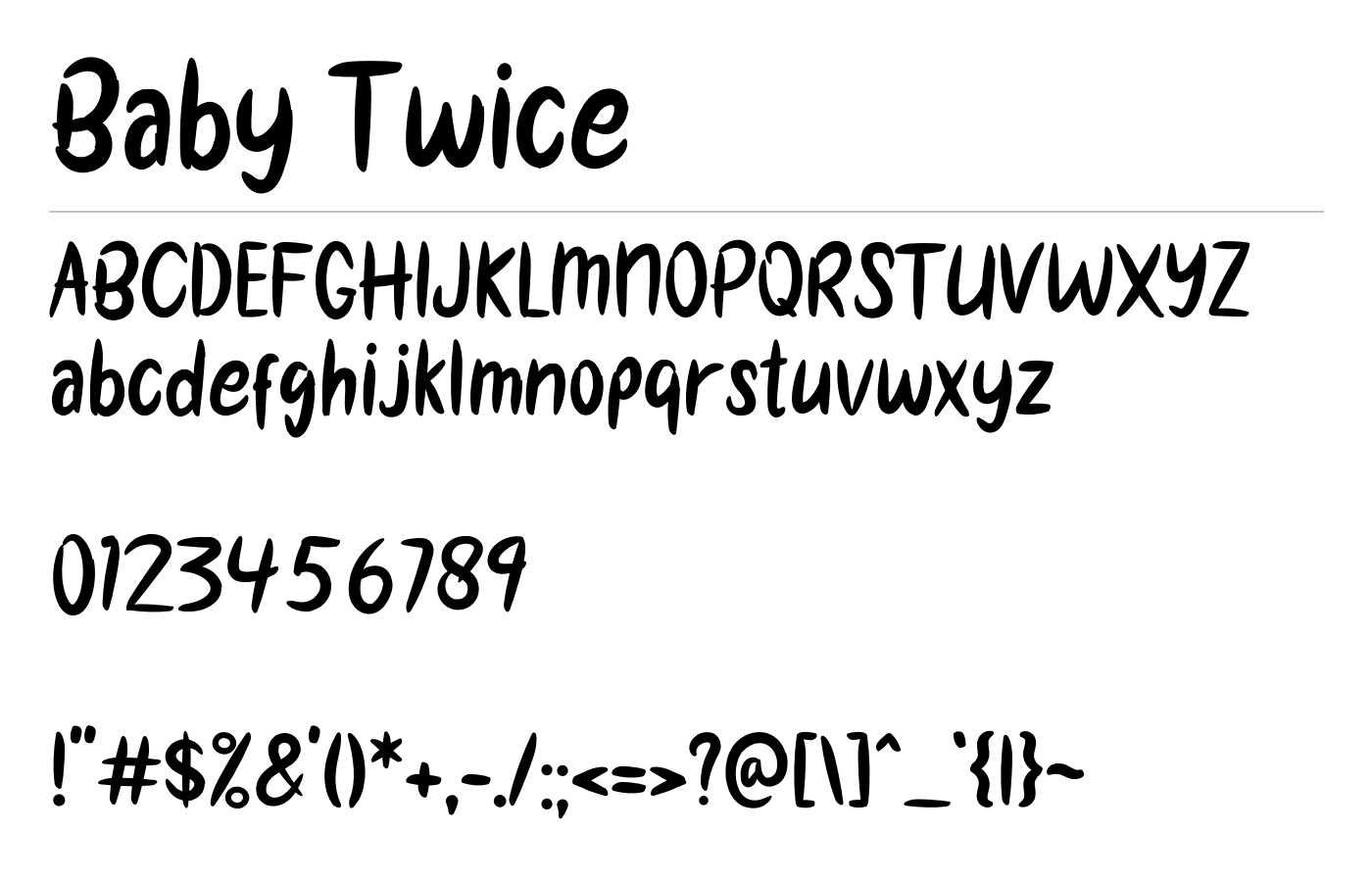
Baby Twice is a playful, casual handwritten sans serif font with a friendly and approachable feel. Its slightly irregular stroke widths and soft, rounded shapes make it ideal for informal, fun designs such as children’s products, creative projects, or lighthearted branding. This font works well for headlines, logos, and packaging where a warm, personal touch is desired.
Baby Twice Font